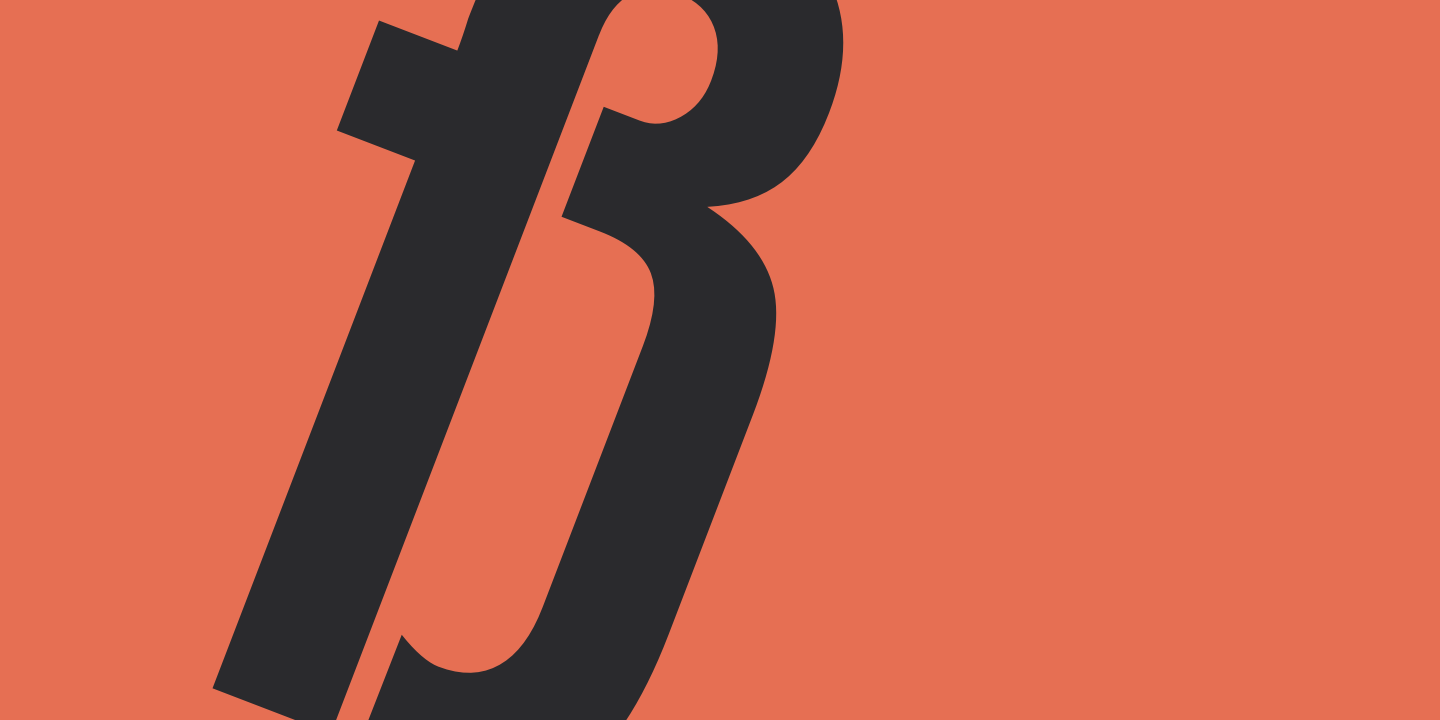
Alternate Gothic Font is perfect for newspaper headlines, magazine titles, vintage advertising posters, retro signage designs, classic American diner menus, industrial packaging labels, transportation company logos, vintage sports team branding, and nostalgic editorial layouts.
Alternate Gothic Font is exciting because it captures the bold spirit of early 20th century American typography with its distinctive condensed letterforms and strong vertical emphasis, evoking the golden age of print journalism and industrial advertising design.
Alternate Gothic Font family includes regular, bold, condensed, extended, outline, and shadow variants, providing designers with versatile options for creating authentic vintage typography with classic American industrial character and historical authenticity.
Alternate Gothic Font Free Download offers designers access to iconic American typography that brings authentic vintage character to any creative project. This remarkable typeface combines historical significance with contemporary usability, making it perfect for projects requiring that distinctive early industrial character and nostalgic appeal. The carefully preserved letterforms feature classic proportions and bold construction that reflect the pioneering spirit of American commercial design while maintaining excellent readability across various applications. Its versatile character set supports multiple design scenarios from editorial headlines to vintage branding systems. Whether you're designing for historical projects, retro branding, or editorial applications with vintage themes, this font delivers genuine American typography heritage with professional quality results. Download this classic font today and energize your designs with typography that celebrates the bold legacy of American industrial design and vintage advertising excellence.